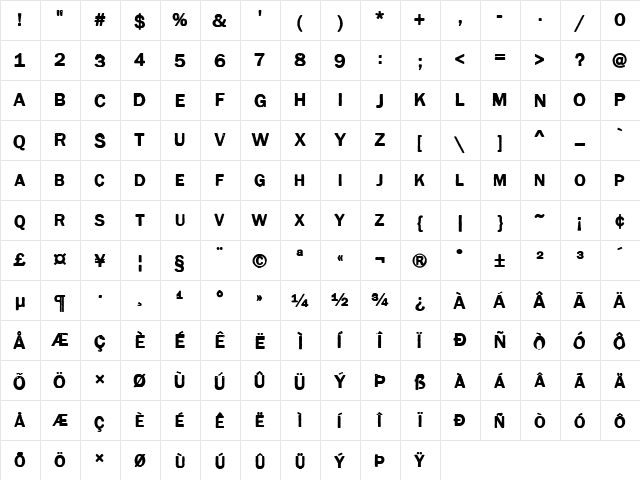
Cynocel Poster Regular
DesignerS. John Ross
Design Context for Cynocel Poster Typeface
Cynocel Poster takes a measured approach to typography — its balanced proportions and neutral character make it a reliable workhorse for both digital and print work.